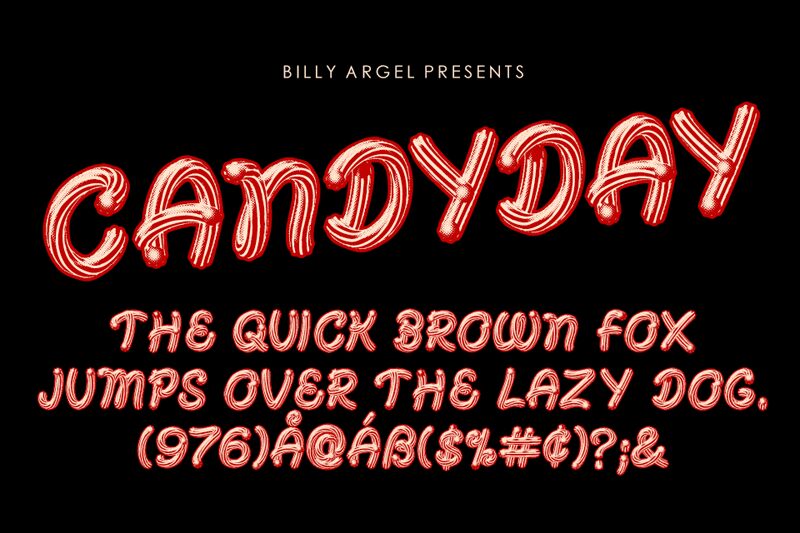
CANDYDAY BW PERSONAL USE Bold
CANDYDAY BW Bold is a playful and eye-catching display font designed by Billy Argel Fonts.
With its bold and decorative style, this font is perfect for adding a touch of fun and whimsy to various creative projects. Use it to create attention-grabbing headlines, posters, logos, or packaging designs. Its bold weight ensures that your text stands out while maintaining legibility.
Whether you're working on a children's book cover, a candy store website, or a vibrant party invitation, CANDYDAY BW Bold will bring a delightful burst of energy to your design.
Two Layered fonts!